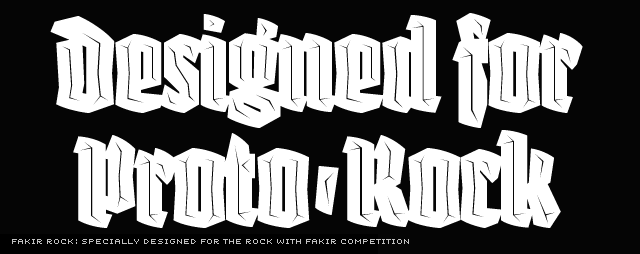
Fakir Rock
In 2007 Fakir was chosen by the producers of the game Rock Band as their official rock-type. The game (one of the biggest games that has ever been imagined - Wired) is about performing legendary rocksongs in front of a screen. For this occasion Underware initiated the international design-rock-competition Rock with Fakir and designed a special proto-version of Fakir. If you are interested in Fakir Rock please get in direct contact with us.